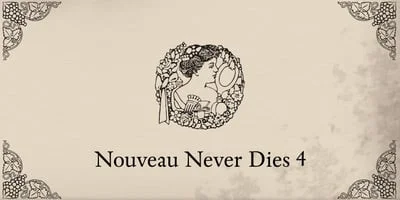
Nouveau Never Dies Font
The Nouveau Never Dies Font excels in various design applications including vintage luxury branding, art nouveau revival projects, eternal elegance marketing, timeless fashion communications, heritage jewelry packaging, classic perfume labeling, sophisticated wine branding, upscale boutique signage, architectural restoration materials, and distinguished cultural institutions that demand enduring artistic sophistication and immortal design beauty.
What makes the Nouveau Never Dies Font exciting is its masterful celebration of Art Nouveau's eternal influence through letterforms that prove great design truly never dies, embodying the flowing organic beauty and decorative sophistication that made the movement immortal. This typeface demonstrates how classical artistic principles transcend temporal boundaries through carefully crafted characters that capture the essence of belle époque elegance while remaining thoroughly contemporary and eternally relevant. The font's timeless personality makes it perfect for luxury brands and cultural institutions seeking to communicate lasting value, artistic heritage, and the immortal appeal of beautiful design through typography that honors the past while embracing eternal aesthetic principles.
The Nouveau Never Dies Font family typically includes multiple weight variations that preserve the Art Nouveau aesthetic integrity, featuring elegant decorative flourishes, organic ornamental elements, and botanical-inspired details. These family options often include stylistic alternates with enhanced Art Nouveau characteristics, classical ligatures, and period-appropriate symbols that provide designers with comprehensive tools for creating authentically timeless typography that celebrates the movement's enduring influence on contemporary design.
Luxury brand designers and cultural heritage professionals consistently choose Nouveau Never Dies Font for projects requiring typography that communicates timeless elegance and artistic immortality. This typeface delivers exceptional performance in luxury marketing, heritage branding, and cultural communications where establishing enduring value and demonstrating artistic sophistication is essential for brand prestige. The font's eternal character makes it particularly effective for commemorative and anniversary applications. Download Nouveau Never Dies Font today to access this immortal typeface that transforms communications with its timeless elegance and artistic sophistication, creating compelling experiences that prove beautiful design is truly eternal and continues to inspire generations of creators and connoisseurs.